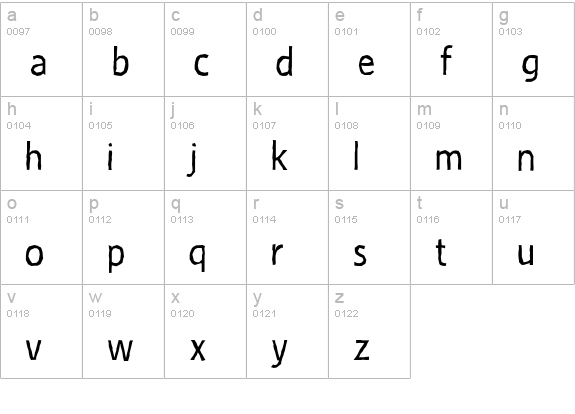
Emory-Regular Font Details
Emory-Regular is the standard, neutral variant in the Emory typeface family \xE2\x80\x94 well suited to general body text, paragraphs, and standard typographic work.
Emory-Regular font is a versatile and modern typeface that exudes elegance and sophistication. Its clean lines and balanced proportions make it ideal for a wide range of design projects, from branding to editorial layouts. With its timeless appeal, Emory-Regular adds a touch of class to any design. The best part? Emory-Regular is available for free download at FontsMarket.com. You can easily access this stunning font and elevate your creative projects without any cost. Don't miss out on the opportunity to enhance your designs with the beauty and charm of Emory-Regular. Download it today and let your creativity shine!